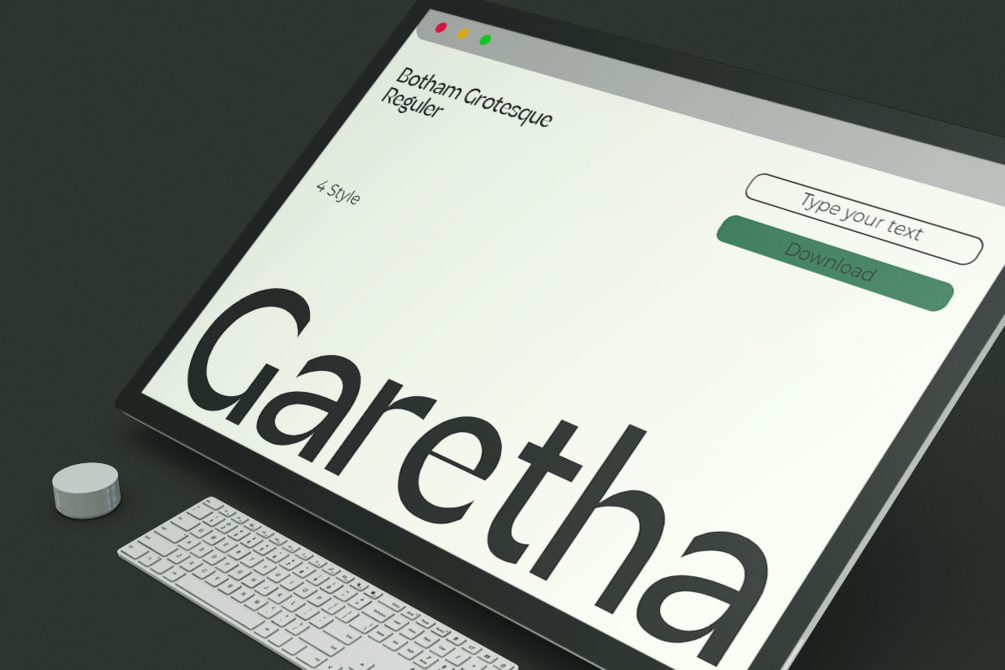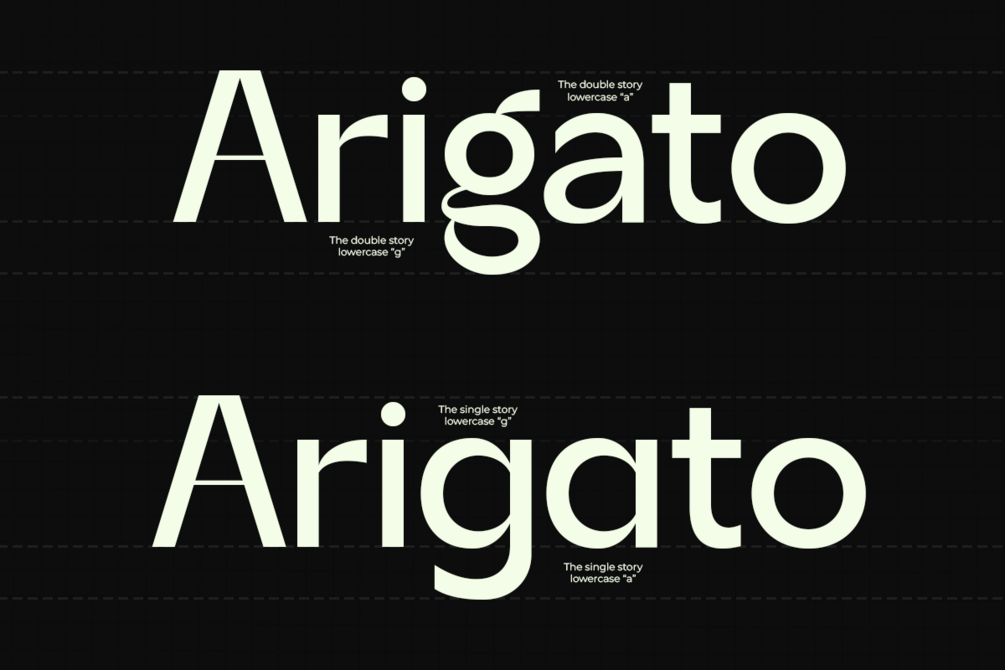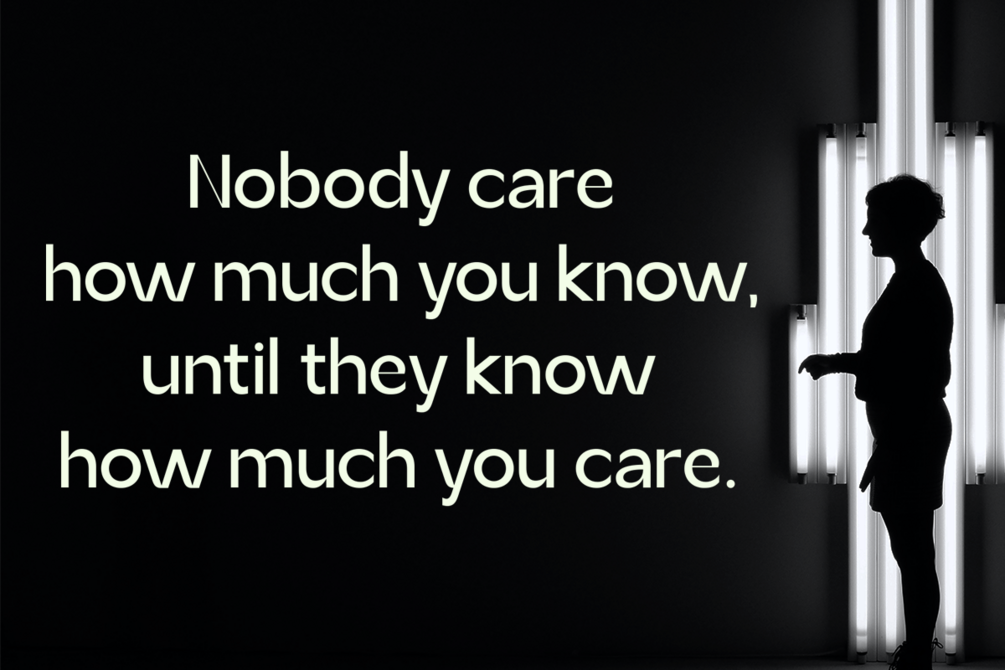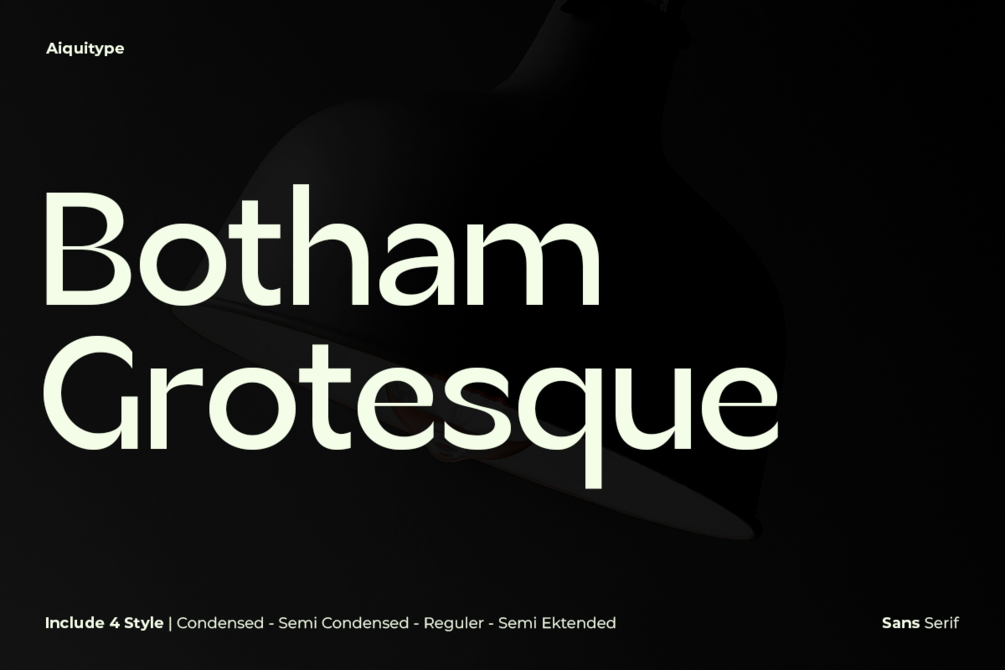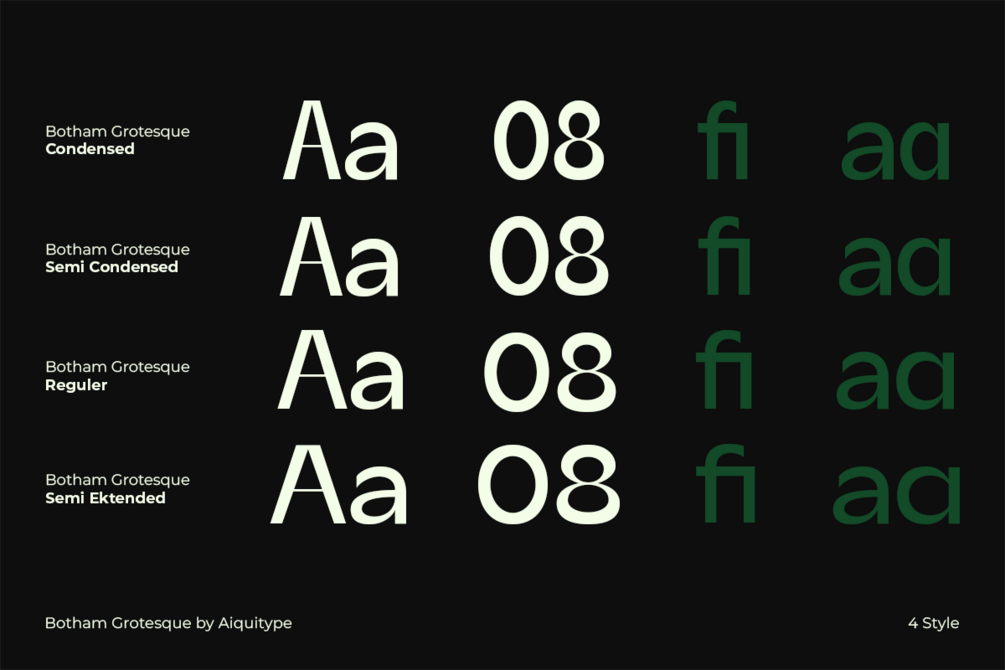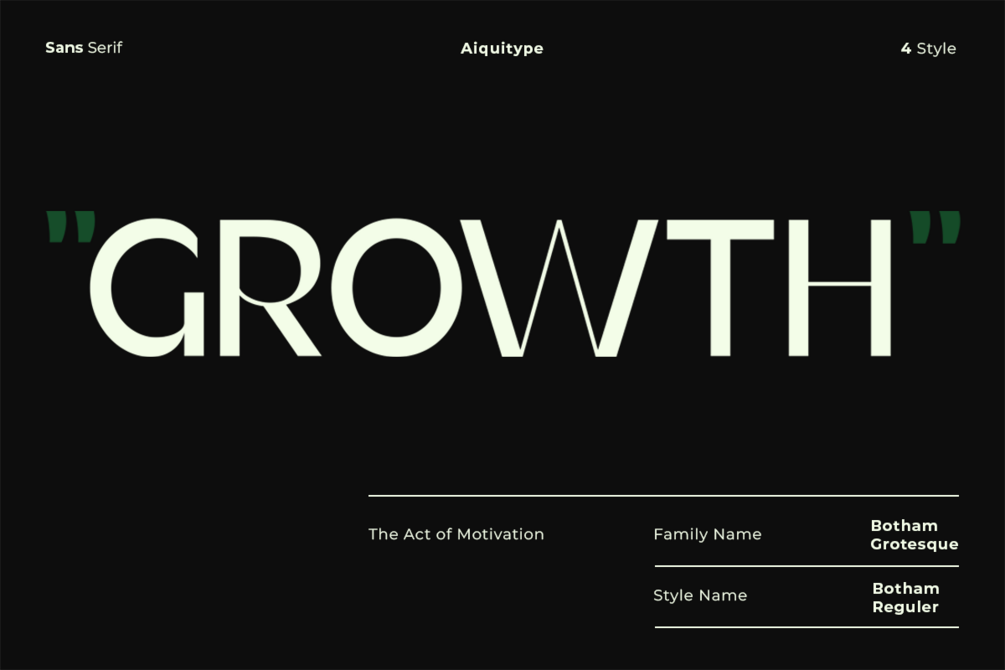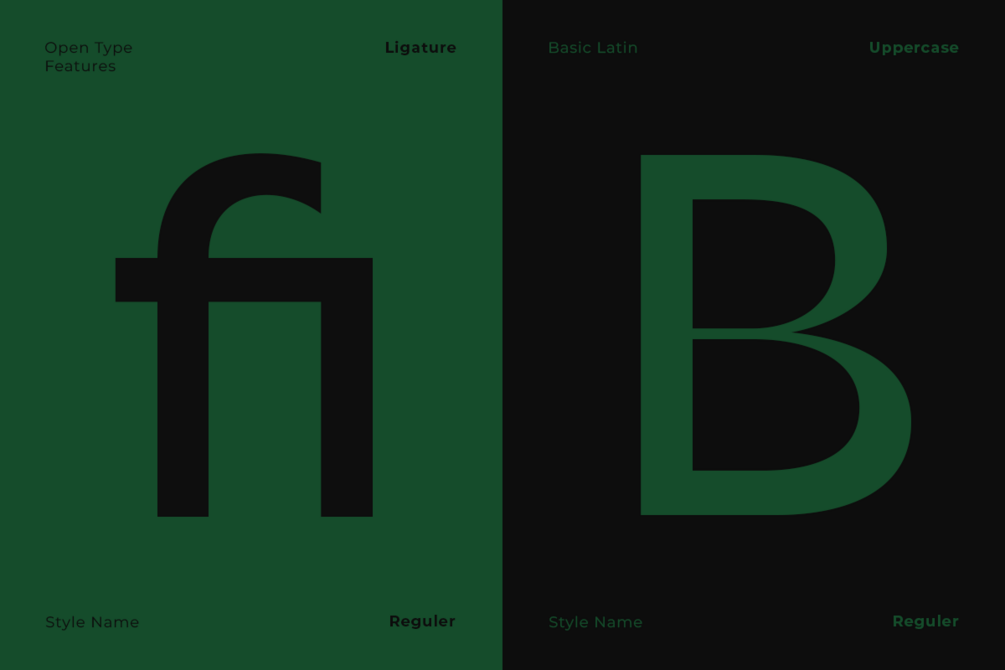
Botham Grotesque
Introducing
Botham Grotesque, a versatile typeface meticulously crafted to embody the essence of modernity and sophistication. This exquisite font, classified under the renowned Grotesque category, boasts four distinct styles that seamlessly blend form and function. Its clean lines and balanced proportions lend a professional, making it an ideal choice for a myriad of applications, from corporate branding to editorial design.
1.      Uppercase, Lowercase, Number and Punctutation
3.      Ready 4 Style :
-        Condensed
-        Semi Condensed
-        Reguler
-        Semi Ektended
4.      Multilingual Support
5.      Ligature and Alternate